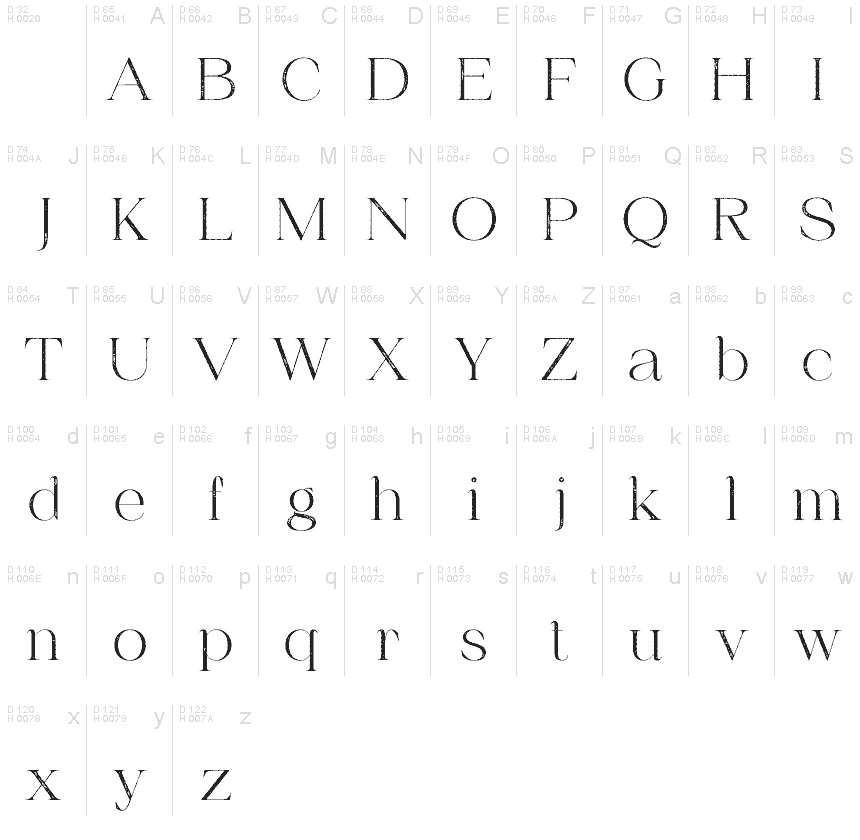
Chilia Vintage Demo Stamp
Chilia Vintage Stamp font by Craft Supply Co. is a vintage-inspired display typeface with a distinctive distressed texture. Its light, eroded serif design brings classic charm and elegance to each character, creating both originality and an artistic appeal.